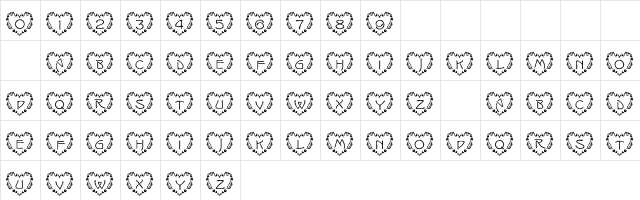
Complete 101! Just Anuther Heart Font Regular glyph index. Displaying only characters natively supported by 101! Just Anuther Heart Font Regular font.
101! Just Anuther Heart Font is a composed and adaptable typeface that performs quietly and consistently across a wide range of design contexts.